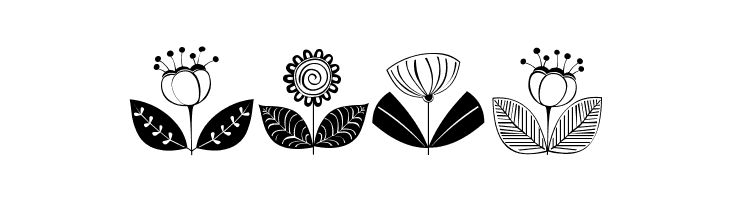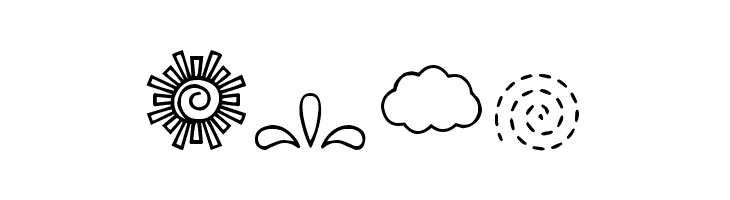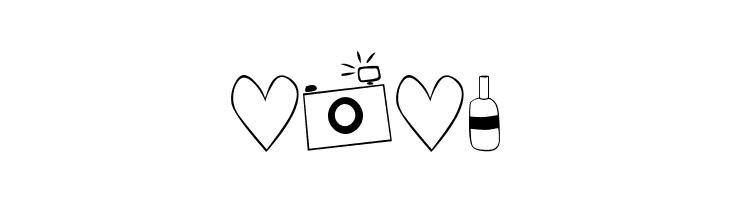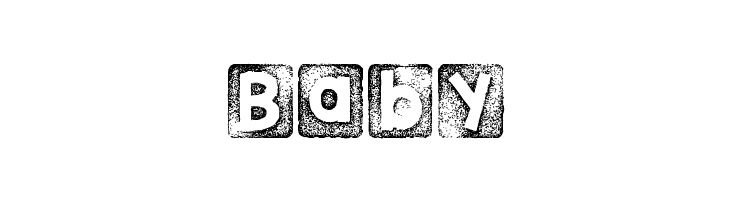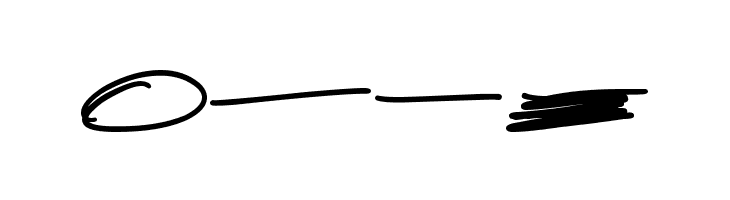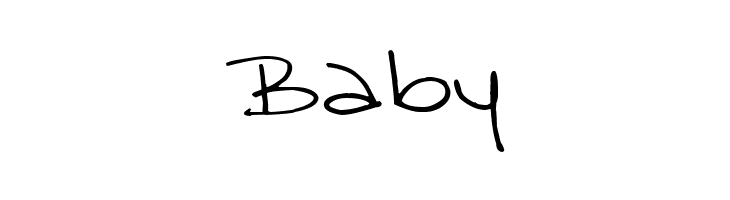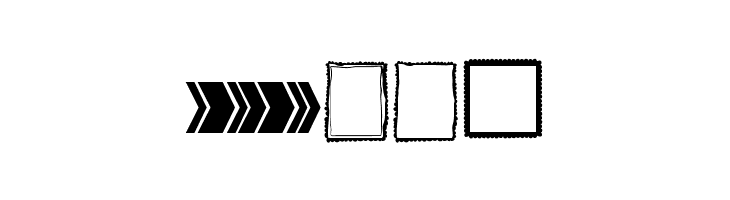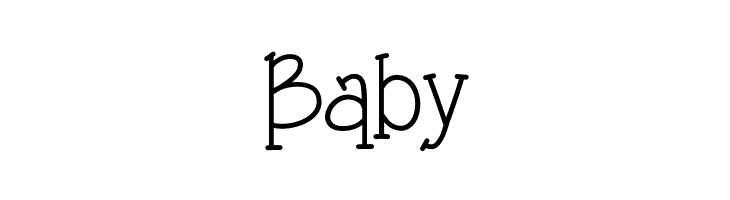
Retro floral and leaf dingbat set with playful, decorative motifs.
A playful collection of hand-drawn doodle icons with a whimsical and artistic style.
A playful set of hand-drawn dingbat icons featuring everyday objects and symbols.
A bold, distressed font with a vintage, stamped look.
Hand-drawn, sketchy marker-style decorative font.
A casual, handwritten font with a playful and expressive style.
A versatile set of decorative frames and arrows with playful and intricate designs.
A whimsical, hand-drawn font with playful, nostalgic charm.